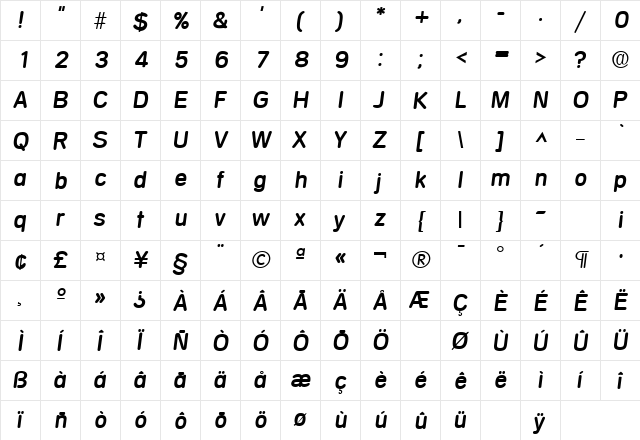
Mercedes Bold Italic
Design Context for Mercedes Typeface
Mercedes offers clean, dependable letterforms without strong stylistic allegiance, making it a practical choice for designers who need flexibility. The dynamic lean of this cut emphasises speed and emphasis in any layout. The heavy weight commands attention and anchors typographic hierarchies.
Pro Tip: Use Mercedes for emphasis, pull quotes, and subheadings where its slanted energy can add rhythm to the layout.